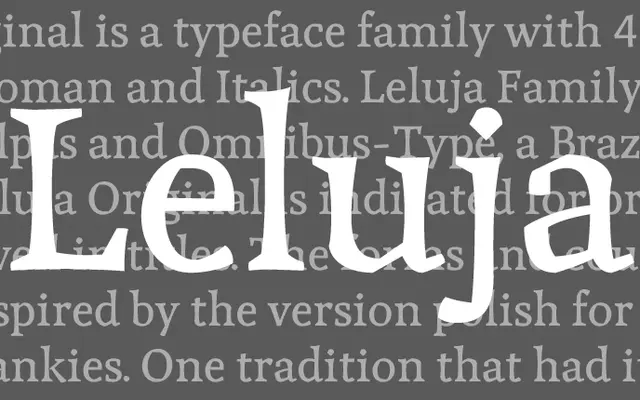
Leluja Original
Omnibus-Type · Andrea Kulpas
A four-weight serif family developed by Andrea Kulpas and Omnibus-Type, drawing its forms from Polish Wycinanki paper-cut folk art.
Designed by Andrea Kulpas in partnership between Omnibus-Type's Brazil and Argentina teams, the family comes in Regular, Italic, Bold and Bold Italic. Its letterforms reference the decorative cut-paper tradition of Wycinanki, a Polish folk art once made from tree bark and leather and later applied to coloured paper for interior decoration and seasonal cards. Suitable for body text in print as well as titling work.
The typeface draws formal inspiration from Polish Wycinanki paper-cut folk art, giving it an ornamental, decorative character that places it within a display or decorative serif subcategory despite being usable for text.